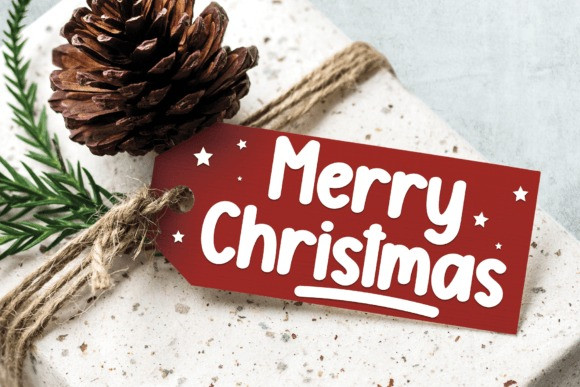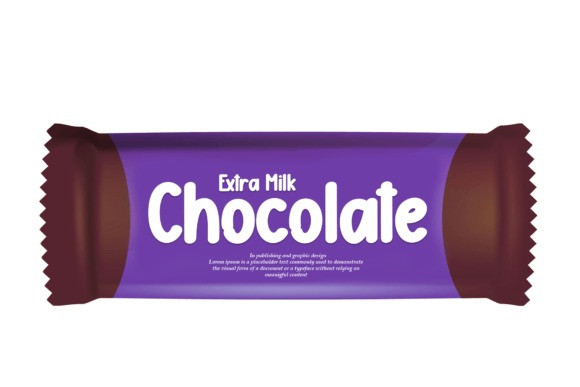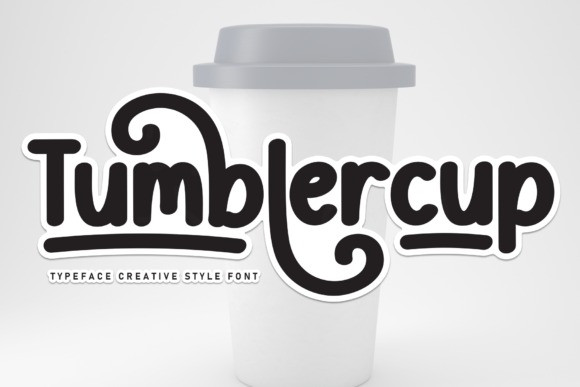
Tumblercup Font
Tumblercup Font is a happy handwritten font that will bring your design into a happy and fun mood. This font is perfect for branding, packaging, logotype, headlines, wedding invitations, etc.